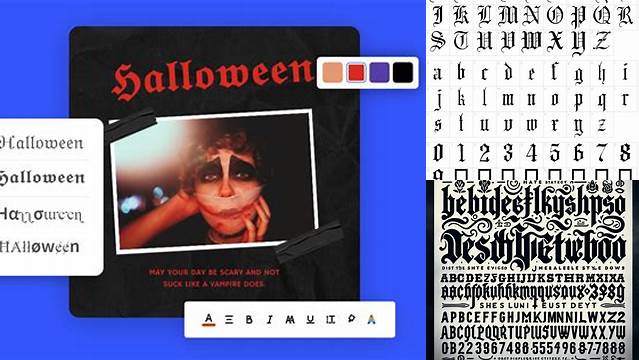
Gothic Fonts Generator: Copy & Paste Guide For Spooky Text
Are you ready to inject some spooky flair into your text, guys? Do you want to give your words that classic, gothic vibe? Well, you're in the right place! I'm going to dive into everything you need to know about a gothic fonts generator, helping you easily copy and paste these awesome fonts wherever your heart desires. We'll cover what gothic fonts are, how to use them, the best generators out there, and even some tips for using them effectively. So, buckle up, and let's get started transforming your text into something truly eye-catching!
What are Gothic Fonts, and Why Do We Love Them?
Gothic fonts or, as they're sometimes called, blackletter fonts, have a rich history, going all the way back to the medieval period. These fonts were used extensively in Europe for writing before the advent of the printing press. They are characterized by their intricate, ornate designs, often featuring sharp angles, thick strokes, and elaborate serifs. Think of the classic look of old manuscripts, illuminated texts, and religious documents – that's the gothic aesthetic! They often look super elegant and have a touch of mystery, making them ideal for projects that want to stand out and grab people's attention.
These fonts aren't just for history buffs; they're super popular in modern design, too. You see them everywhere: on band logos, tattoo designs, event posters, and even in the names of businesses looking for a unique edge. Gothic fonts bring a sense of tradition, sophistication, and a hint of darkness to any design. They are also used in creating a dramatic effect, making the content pop. When you use these fonts, you can set a very particular tone, whether you're trying to evoke a feeling of darkness, mystery, or simply a classic aesthetic. So, whether you're working on a personal project or a professional one, using a gothic font can make a massive difference in how people perceive your text. They're perfect if you're trying to create something that feels old-school, timeless, or just plain cool.
Why do we love them? Well, besides the aesthetic appeal, gothic fonts offer a strong visual impact. They immediately grab your eye, making your text unforgettable. Also, they are associated with a sense of history and authenticity. Many people love the way these fonts look because they're different from the standard sans-serif and serif fonts we see every day. They offer a refreshing break from the norm, making your text stand out from the crowd. They provide designers and writers with an awesome way to express their creativity and create a unique identity for their work.
Examples of Gothic Fonts in Use
To give you a better idea of their versatility, let's look at some cool examples:
- Band Logos: Many rock and metal bands use gothic fonts to create a strong visual identity, reflecting the genre's dark and edgy aesthetic. Think of bands like Metallica or Cradle of Filth, which have iconic gothic-style logos.
- Tattoo Designs: Gothic fonts are a popular choice for tattoo artists. The detailed and intricate designs are perfect for creating personalized and meaningful tattoos.
- Event Posters: Gothic fonts are used to promote events like Halloween parties, goth nights, and other themed events, setting the mood and attracting the right audience.
- Book Covers: Many authors of fantasy and horror genres use gothic fonts to add a touch of mystery and intrigue to their book covers.
- Website Design: Websites that want to convey a sense of history, sophistication, or a unique brand often use gothic fonts. This is perfect for creating a unique identity for their websites.
How to Use a Gothic Fonts Generator
Using a gothic fonts generator is super easy and straightforward. Here’s a step-by-step guide to help you get started:
- Find a Generator: Start by finding a reliable gothic fonts generator online. There are plenty of free tools available that let you convert your regular text into various gothic styles.
- Enter Your Text: Once you've found a generator, the first thing you need to do is type or paste the text you want to convert into the provided text box. This is usually a simple input field where you can add your content.
- Choose Your Style: Most generators offer different styles of gothic fonts. Browse through the options and select the one that best suits your needs. You might find styles like Fraktur, Schwabacher, or Textura, each with its unique look.
- Copy the Output: After selecting your style, the generator will display your text converted into the chosen gothic font. All you need to do is copy the generated text by clicking the “copy” button or highlighting the text and pressing Ctrl+C (or Cmd+C on a Mac).
- Paste and Use: Now, you can paste the copied text into any application that supports text input, such as social media, word processors, or graphic design software. Just right-click where you want to use the font and select